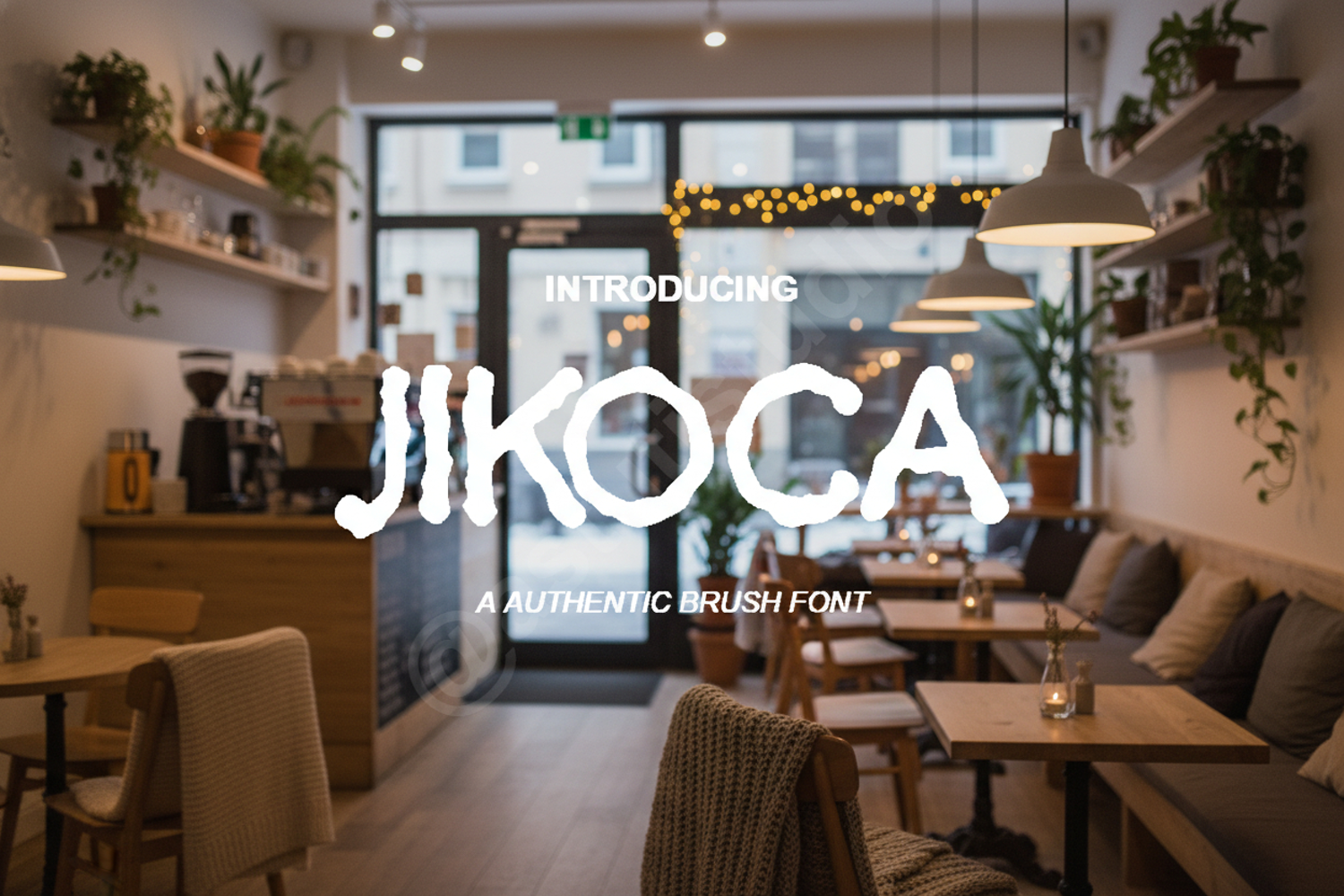
Jikoca | Elegant Modern Serif Typeface
Jikoca
Experience the perfect blend of contemporary style and timeless elegance with Jikoca. This premium serif font is meticulously crafted to bring a sense of luxury and professional polish to any creative project. Its clean lines and balanced proportions make it a versatile choice for designers seeking a sophisticated aesthetic that stands the test of time.
Jikoca is designed to excel across a wide range of high-end applications:
- Professional Branding and Visual Identity
- High-end Editorial and Magazine Layouts
- Elegant Wedding Invitations and Stationery
- Sophisticated Logo Design
- Social Media Graphics and Luxury Marketing Materials
- Modern Website Headers and Digital Typography